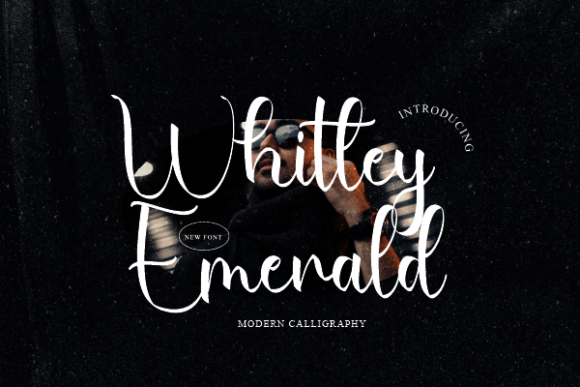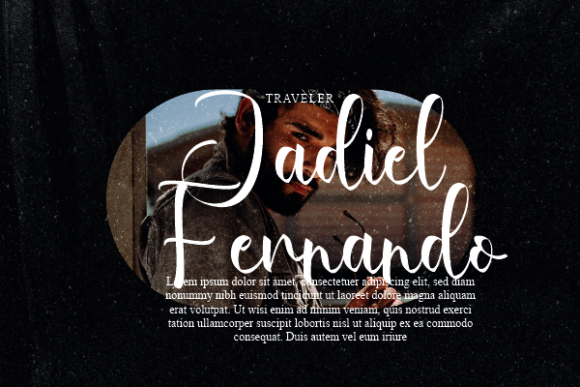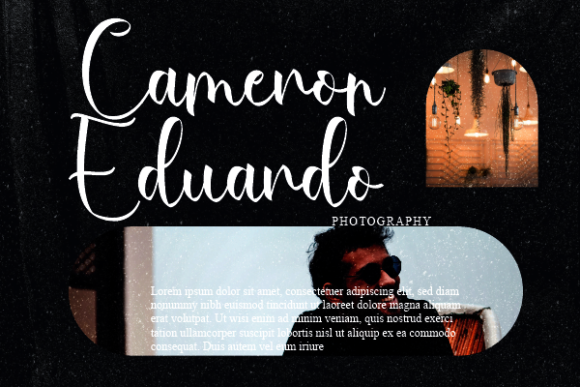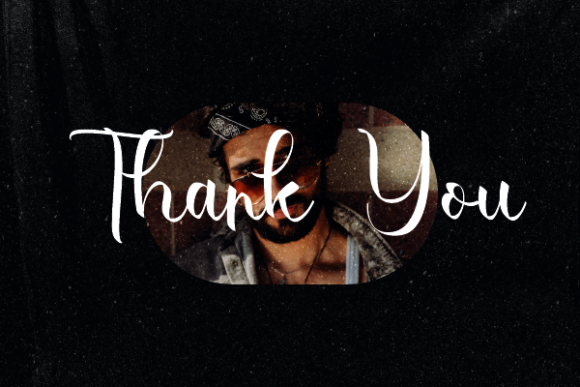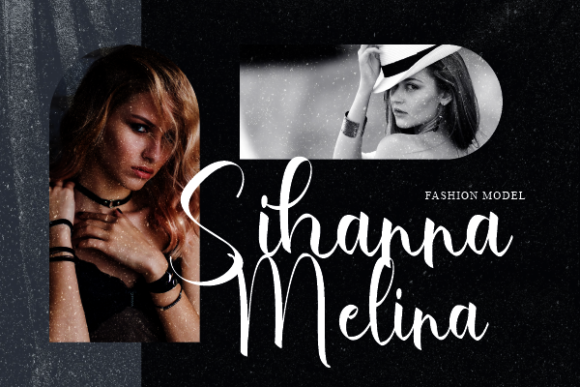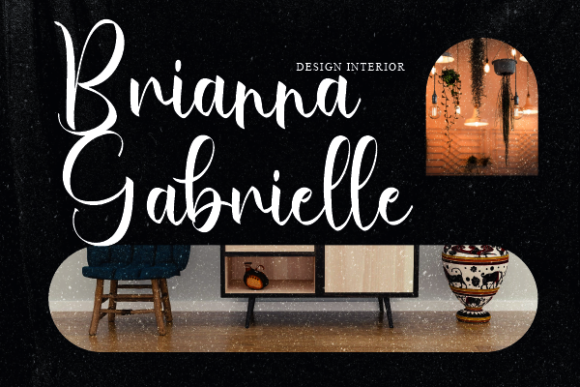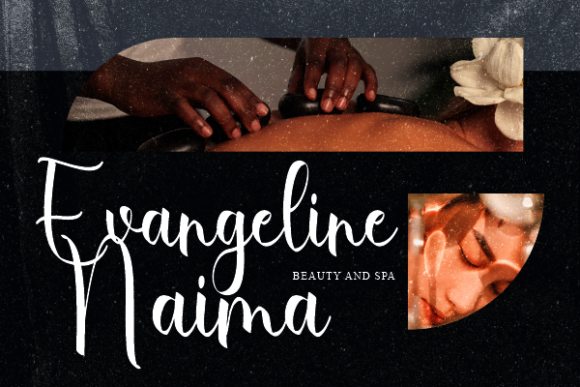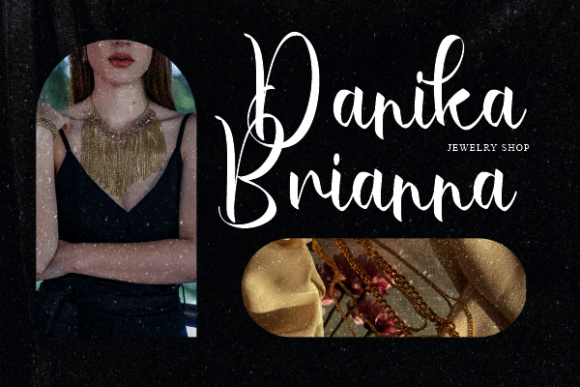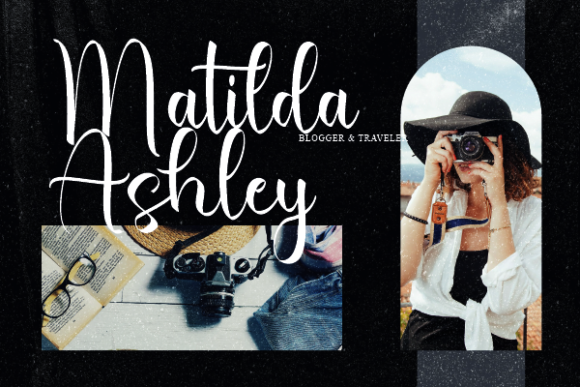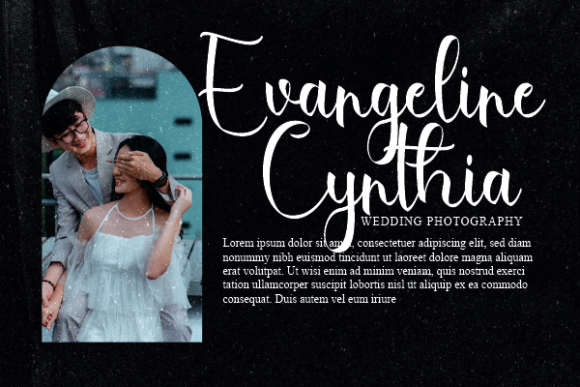
Whitley Emerald Font
About Whitley Emerald Font
Introducing Whitley Emerald, a script font that effortlessly embodies both fashion and delicacy. This font is your versatile solution for a wide array of design projects, showcasing a perfect balance of elegance and style.
Whitley Emerald is your ideal choice for logos and branding projects. Its fashionable script adds a touch of sophistication and refinement to your brand identity, ensuring a memorable and impactful presence. Whether your brand exudes luxury or simplicity, Whitley Emerald seamlessly adapts to match your unique vision.
When it comes to labels and packaging, Whitley Emerald lends an air of charm and allure. The delicate script imparts a distinctive character to product labels, effortlessly catching the eye of consumers and encouraging them to explore further. Your products will stand out on the shelves, making a statement with Whitley Emerald’s exquisite style.
For photographers, Whitley Emerald serves as an elegant watermark that enhances your images without overshadowing them. The font’s graceful curves and intricate details add an artistic touch to your photography, elevating your work to a new level of professionalism.
Planning a special event or creating invitations? Whitley Emerald’s script brings an element of sophistication and beauty to your designs. Its intricate letterforms and flowing lines transform ordinary materials into works of art, leaving a lasting impression on recipients and setting the tone for your event.
In the realm of social media, Whitley Emerald shines as a captivating font for posts, captions, and graphics. Its delicate script injects an air of elegance and allure, capturing the attention of your audience and enhancing the visual appeal of your content.
Whether for logos, packaging, events, or digital platforms, Whitley Emerald’s fashionable and delicate script taste elevates your projects to a new level of excellence. With its versatile charm and timeless elegance, this font is the perfect addition to your creative arsenal, ensuring that your designs make a lasting impact and leave a mark of beauty and style.